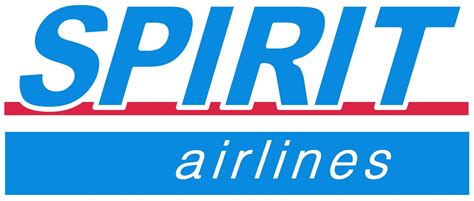
Unveiling The ISpirit Airlines Logo Font: A Deep Dive
Unveiling the iSpirit Airlines Logo Font: A Deep Dive
Hey guys! Ever wondered about the iSpirit Airlines logo font ? You’re not alone! A great logo is more than just a pretty picture; it’s a statement, a brand’s handshake with the world. And the font? Well, that’s the voice behind the handshake. It whispers the brand’s personality, its values, and what it stands for. Today, we’re diving deep into the iSpirit Airlines logo font, exploring its characteristics, potential origins, and the overall impact it has on the airline’s brand identity. So, buckle up, because we’re about to take off on a typography adventure!
Decoding the iSpirit Airlines Logo Font: What Makes it Tick?
First things first, what exactly is the iSpirit Airlines logo font? While official information might be a bit tricky to come by (unless you’re in the inner circle), we can certainly make some educated guesses based on visual analysis. The primary font used in the iSpirit Airlines logo appears to be a clean, modern sans-serif . This means it lacks the little decorative strokes (serifs) you might see on fonts like Times New Roman. Instead, it favors a streamlined, minimalist look. This style choice is pretty common in the aviation industry, reflecting a sense of efficiency, reliability, and forward-thinking. Think about it: sleek planes, streamlined processes, and a brand that’s all about getting you where you need to go – efficiently and with style. The font used for the logo needs to mirror all of that. You’ll likely notice the following characteristics:
• Modern Sans-Serif: As mentioned, this is the foundational style. It gives a contemporary feel.
• Geometric Forms: Many modern sans-serif fonts feature clean, geometric letterforms. This contributes to a sense of precision and professionalism.
• Legibility: The font needs to be easily readable, even at smaller sizes or in various contexts (like on the side of a plane!). Clear communication is key for a successful airline.
• Weight & Style: The weight (thickness) of the font is likely to be a medium or bold, ensuring it’s eye-catching without being overpowering. The overall style probably leans towards being neutral to project the aforementioned characteristics.
Now, let’s play detective. Based on these observations, it’s possible that the iSpirit Airlines logo font could be a custom-designed font, crafted specifically for the airline. Alternatively, it could be a commercially available font, carefully selected to align with the brand’s aesthetic. Several popular sans-serif fonts share similarities, like Montserrat, Open Sans, or even a variation of Helvetica or Arial (though those are quite common). To get a precise answer, we’d need insider info or a direct confirmation from the airline, but this is the fun of a little exploration.
The psychology of Fonts
The choice of the font is really important to get the brand message across! Fonts influence human perception. It is a powerful instrument of communication that conveys more than just words on a page or a screen. The font, with its design, style, and unique characteristics, silently communicates information about a brand’s personality, values, and identity. Each font family offers a range of styles that can be used to set a specific tone. Consider the use of a sans-serif typeface, like the one likely used by iSpirit Airlines. Sans-serif fonts are designed without small strokes known as serifs, giving them a sleek and contemporary look. The lack of serifs indicates a modern and simplified design philosophy, which can transmit a sense of simplicity, efficiency, and clarity, qualities that are crucial for the aviation industry. In comparison, serif fonts, which have these strokes, may suggest tradition, elegance, and reliability. This way, choosing a sans-serif is a good way to convey trustworthiness. The weight and style of a font also influence perception. A heavy or strong font conveys confidence and strength, whereas a thin font evokes refinement and lightness. The selection of the typeface is a sophisticated way to create visual content that resonates with the audience on a subconscious level, which reinforces the brand identity. The goal is to build an emotional connection. The iSpirit Airlines logo font, likely a modern sans-serif, is an effective way to reflect the brand’s commitment to providing smooth and modern travel experiences.
The Impact of the iSpirit Airlines Logo Font on Brand Identity
Alright, let’s talk about the big picture. How does the iSpirit Airlines logo font contribute to the overall brand identity? Well, it’s a crucial piece of the puzzle. Think of brand identity as the complete picture, and the font is one of the important brushes. The font works hand-in-hand with the logo’s other elements (color, imagery, etc.) to create a cohesive and memorable brand experience. Here’s what the iSpirit Airlines logo font likely does:
• Conveys Modernity and Reliability: The clean, sans-serif style likely reinforces iSpirit Airlines’ modern approach to air travel, suggesting they’re keeping up with the latest trends and technologies, while also communicating a sense of reliability.
• Creates Visual Consistency: Using the same font consistently across all branding materials (website, social media, marketing campaigns, etc.) creates a unified brand image that’s easy for customers to recognize and remember. Imagine if they used a different font for every piece of communication – it would be a bit chaotic, right?
• Communicates Brand Personality: The font choice plays a role in establishing iSpirit Airlines’ personality. It’s likely a professional, perhaps slightly more approachable look, suggesting a company that values both efficiency and customer experience.
• Enhances Memorability: A well-chosen and unique font helps iSpirit Airlines stand out from the competition. While many airlines use similar styles, the specific font, when used consistently, becomes a visual cue that customers associate with the brand.
• Supports Brand Values: The font visually communicates the company’s core values. In the case of iSpirit Airlines, this would probably include efficiency, innovation, reliability, and potentially a focus on customer comfort.
Essentially, the iSpirit Airlines logo font isn’t just about the words; it’s about the feeling it evokes. It’s about what the company wants you to perceive when you think of them. It’s a small element with a big role to play in the brand’s success.
Conclusion: The iSpirit Airlines Logo Font – More Than Meets the Eye
So, there you have it, guys! The iSpirit Airlines logo font, while seemingly simple, plays a crucial role in shaping the airline’s brand. It’s a statement about modernity, reliability, and their commitment to providing a great customer experience. While we might not have all the insider secrets, we can appreciate the design and the thought that goes into choosing the perfect font. Next time you see the iSpirit Airlines logo, take a second to appreciate the font. It’s a small detail, but it speaks volumes about the brand! Safe travels, and keep an eye out for those fonts!